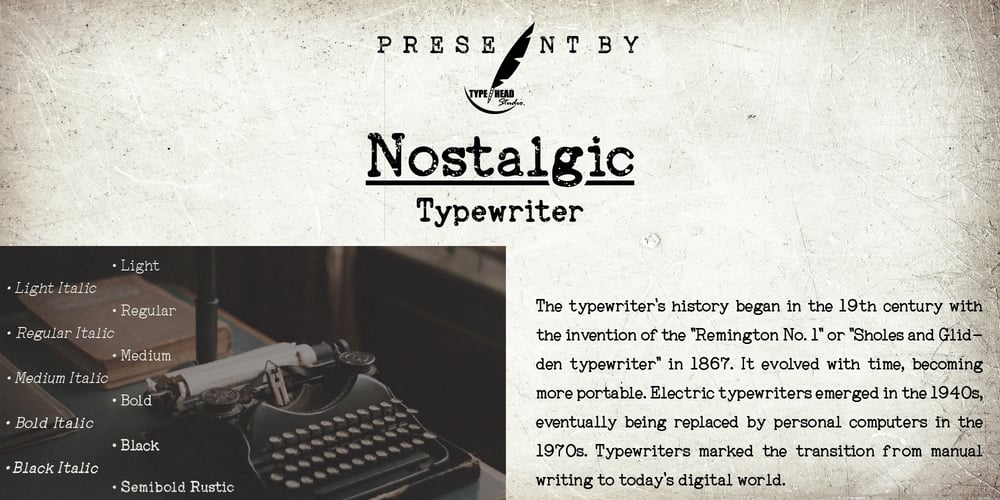
Nostalgic Typewriter
Nostalgic Typewriter font
Nostalgic Typewriter Font Family was designed by Gatot Triardi Pramaji and published by Typehead Studio. Nostalgic Typewriter contains 11 styles and family package options. Nostalgic Typewriter is a typewriter font that exudes classic vintage charm with an irresistible allure. Inspired by the iconic typewriters that once dominated the world of manual typing, this font brings forth warm nostalgia and timeless appeal in every character.Key Features:Classic Aesthetics: Every letter in the Nostalgic Typewriter is meticulously crafted to create a classic look that harks back to bygone eras of manual writing.Vintage Power: The font captures invaluable retro vibes in its design, with rough edges and character placement that evoke an authentic feel from yesteryears.Character Diversity: Nostalgic Typewriter boasts a variety of characters, including uppercase, lowercase, numbers, and special symbols. All are designed to cater to your diverse design needs.Ease of Use: This font is ready to enhance a wide range of projects, such as poster designs, stickers, greeting cards, t-shirts, and more. With flexible licensing, you can confidently use it for personal or commercial projects.High-Quality: Nostalgic Typewriter is crafted with attention to detail and top-notch quality, ensuring that your printed or digital output will always captivate.